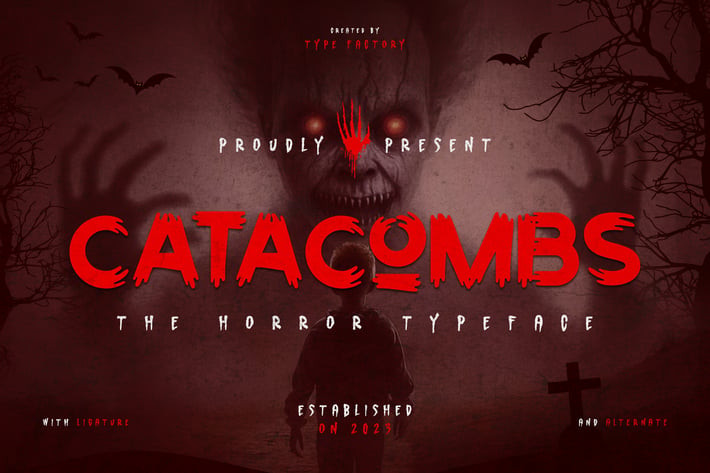
Catacombs - The Horror Typeface
Catacombs is a chilling horror typeface designed to evoke fear and suspense in your designs. With its jagged edges and eerie, shadowy forms, Catacombs captures the essence of classic horror and Gothic aesthetics. Perfect for movie posters, book covers, Halloween-themed projects, and anything that requires a touch of the macabre, this typeface brings a haunting atmosphere to your work. Catacombs is your go-to choice for creating spine-tingling visuals that leave a lasting impression.